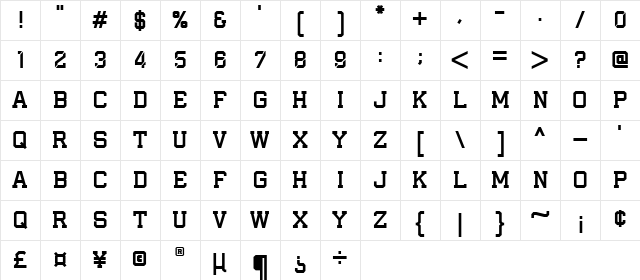
I AM A PLAYER Regular Free Font
I AM A PLAYER Regular
Designer: greenegg
Design Context for I AM A PLAYER
I AM A PLAYER is a composed and adaptable typeface that performs quietly and consistently across a wide range of design contexts.